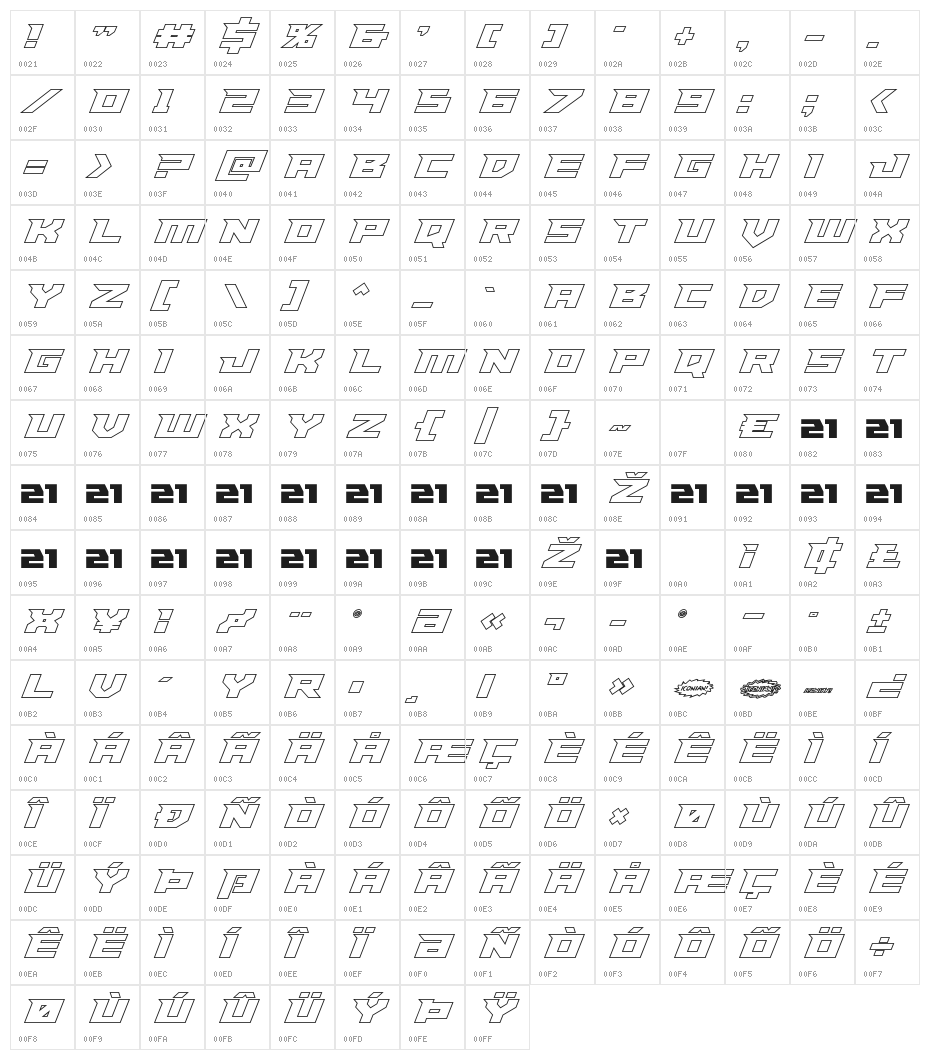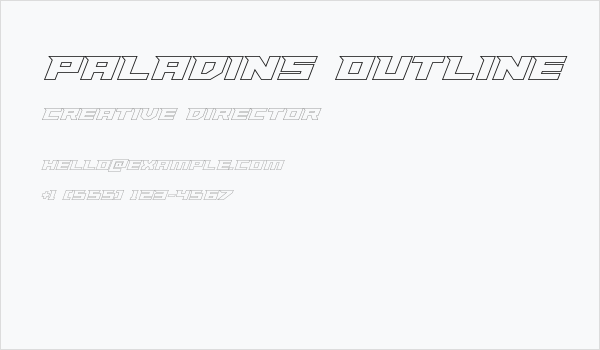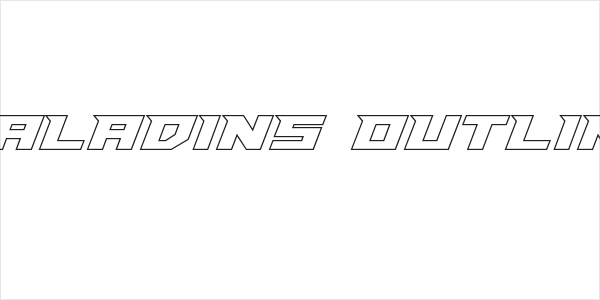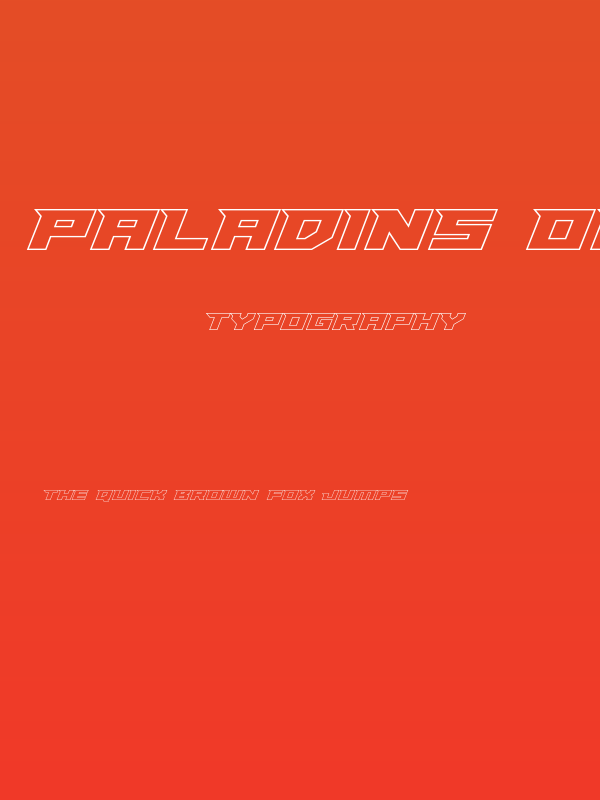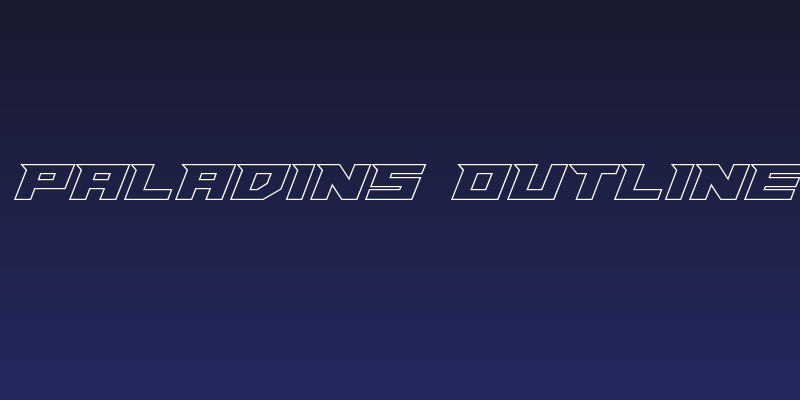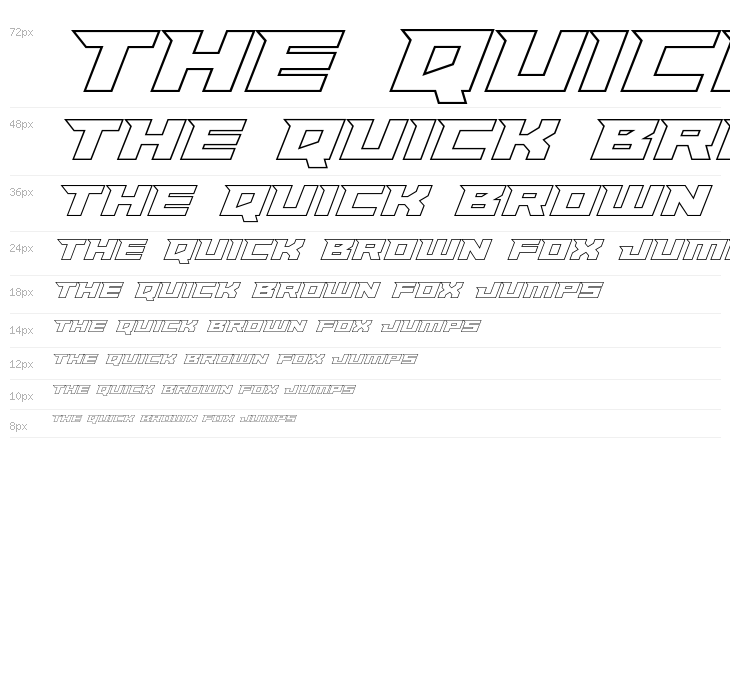
Paladins Outline Font
Paladins Outline Description
This font features a bold, geometric outline style that gives it a futuristic and dynamic appearance. The characters are angular with sharp edges, creating a sense of movement and energy. The uppercase and lowercase letters maintain a consistent design, with a uniform stroke width that enhances readability. The numbers and special characters follow the same stylistic approach, ensuring a cohesive look across all elements. This font is ideal for projects that require a modern and edgy aesthetic, such as video game titles, tech branding, or sci-fi themed designs.
| Overall Style | Futuristic, Dynamic |
| Proposed Projects | Ideal for video game titles, tech branding, sci-fi themed designs, and dynamic posters. |